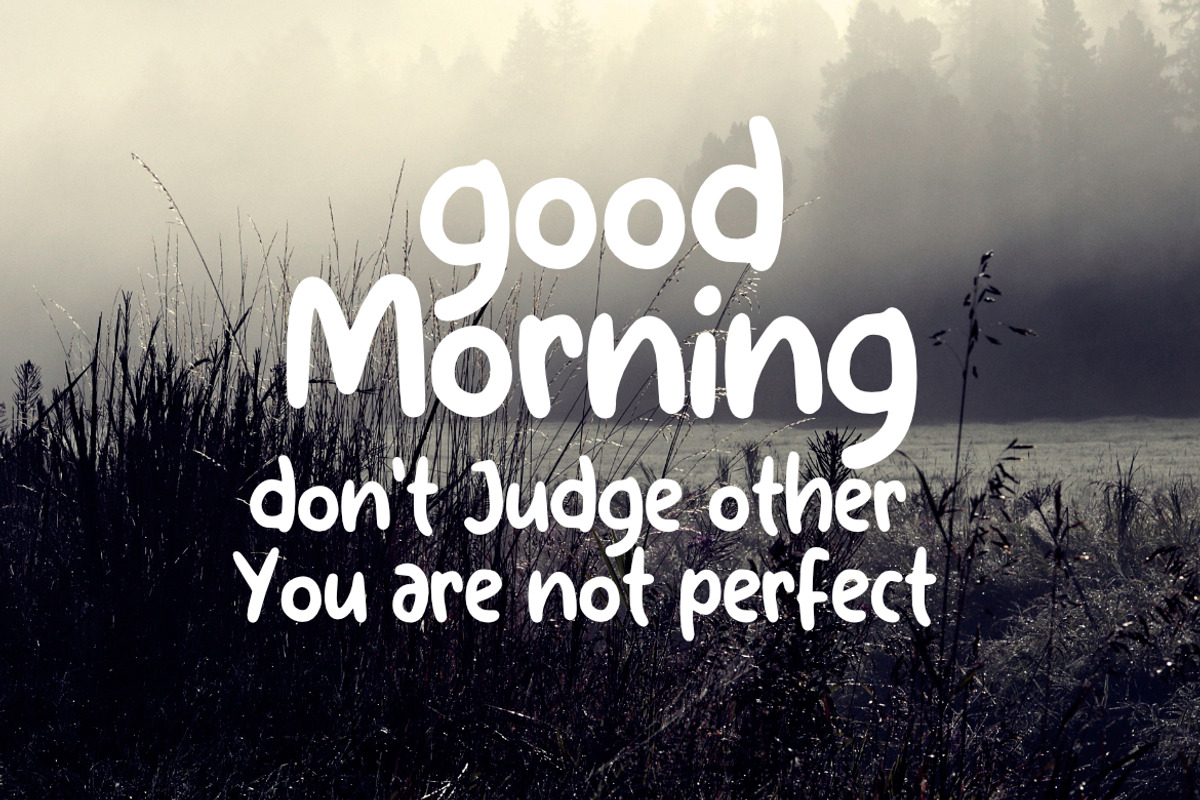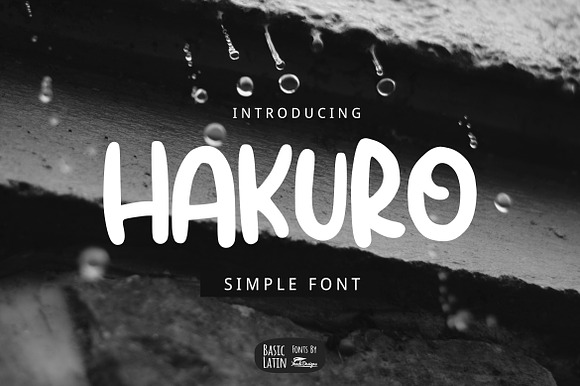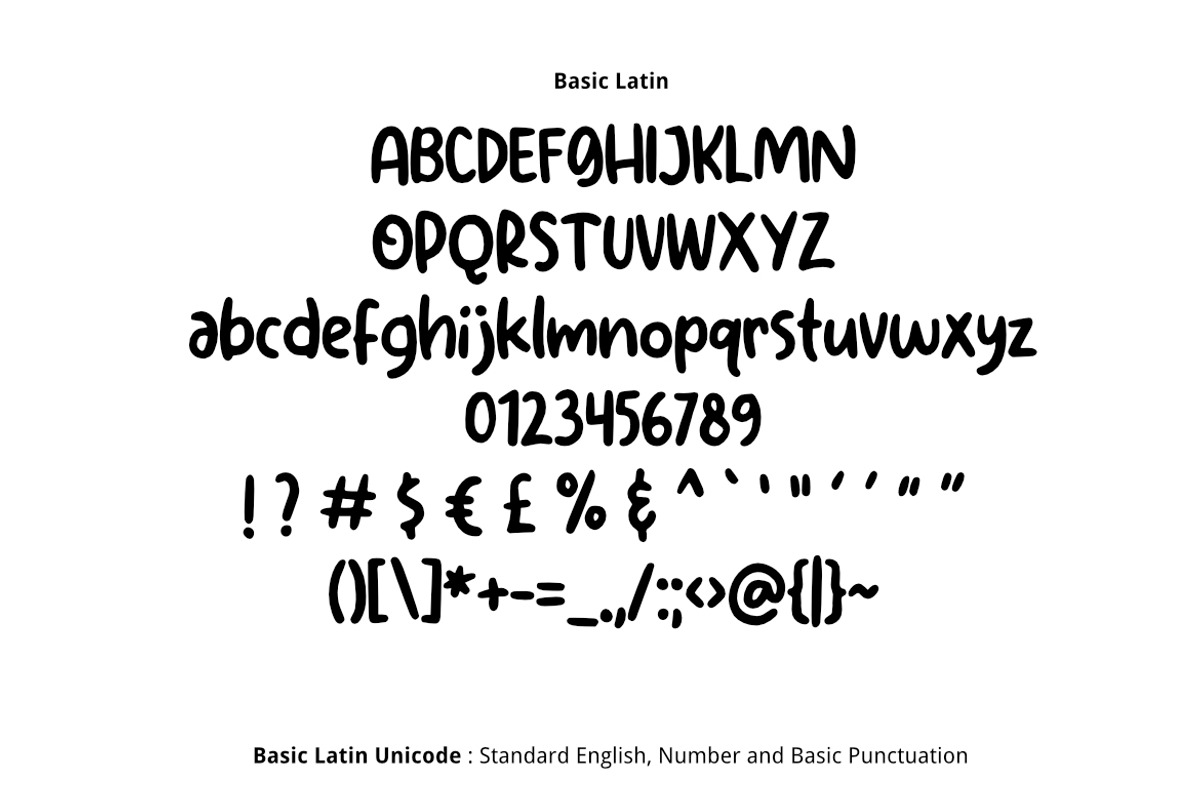
Hakuro Marker Font
Hakuro or White Dew font is simple, cute, multipurpose marker handwritten font , suitable for many project children book, quotes, logo , heading , title etc.
Hakuro Marker Font by YandiDesigns fits naturally into Branding, posters, packaging, typography.